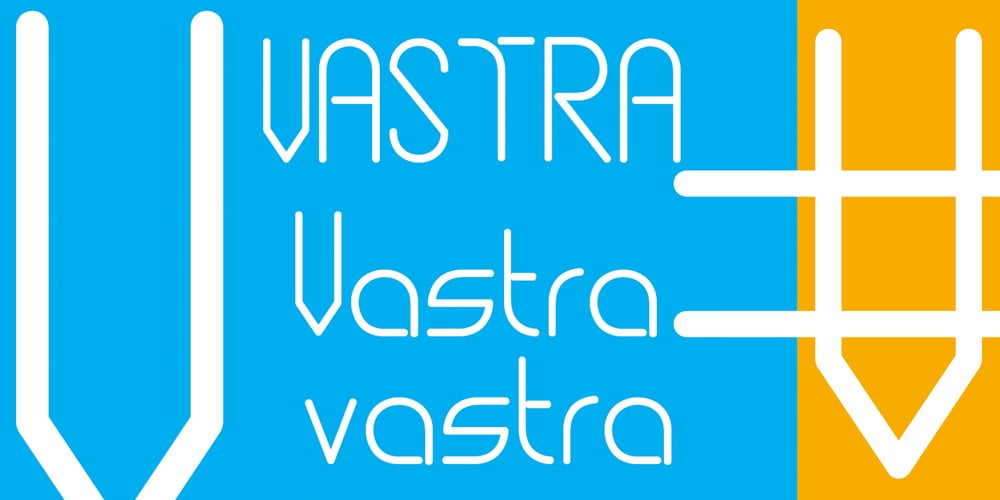
vastra Font Family was designed by published by AdultHumanMale. vastra contains 9 styles and family package options. vastra is a slim, futuristic, bauhaus inspired typeface. It has plenty of those pesky foreign glyphs and various alternates of the standard alphabet. It’s available in 5 different weights from light to Heavy and is complimented by 5 italicized versions of the 5 different weights too. I wanted this font to look like background set typography in a 70’s sci-fi movie. D A N G E R You can buy it in singles, pairs or the whole damn brood.